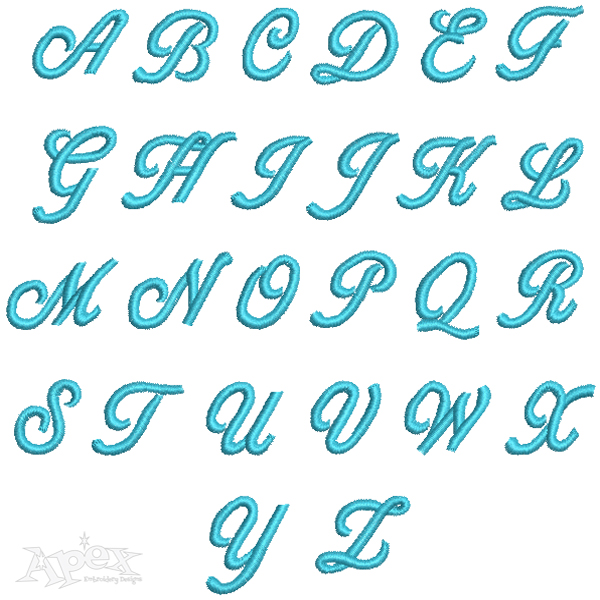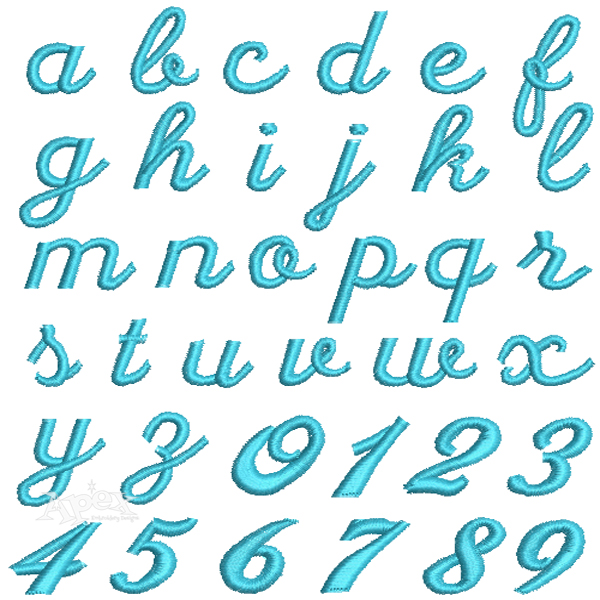
Ribbon Script Small Embroidery Fonts
Ribbon Script Embroidery Font. Small font sets great for ribbons, collars and leashes. You get Three Sizes: .30" , .40" and .50" Sets